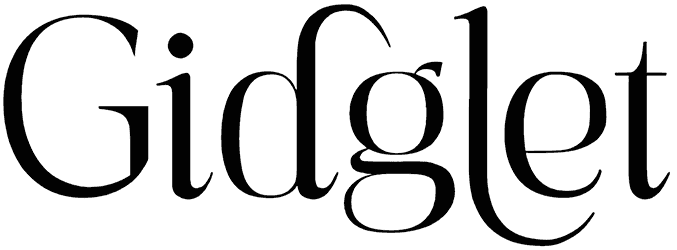
Kaviar Beluga Font
Even if you have no idea how to proceed with your logo design, Kaviar Beluga can take care of the job for you splendidly. There’s really not much to worry about when you leave everything to the fancy letters of this serif font and let it work its magic.
Perfect for branding purposes in the fashion industry, beauty products, and financial services, this elegant font will be your best chance to make a good first impression on your potential clients.